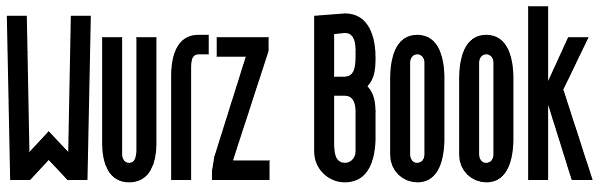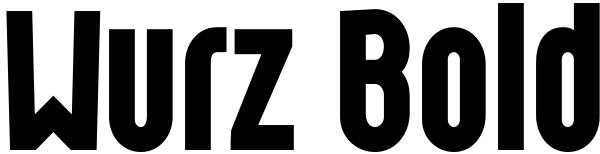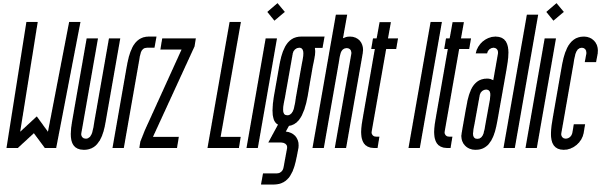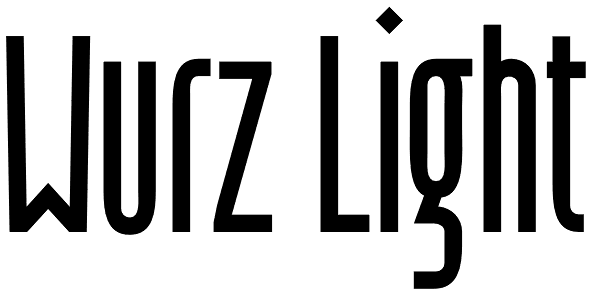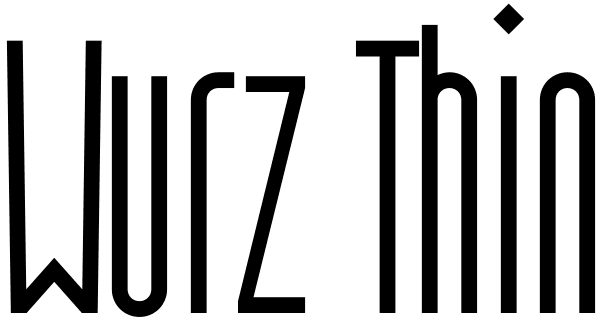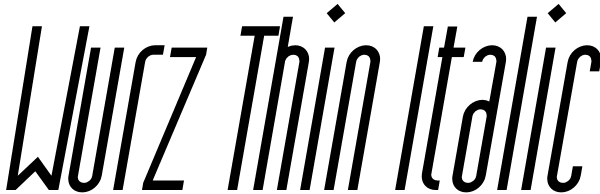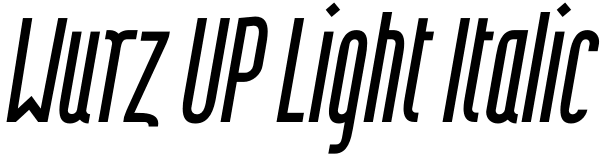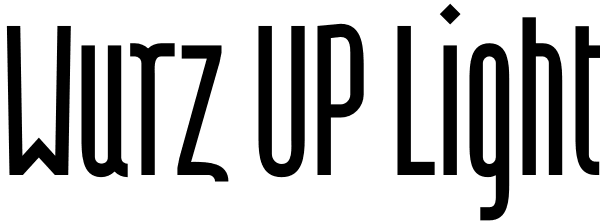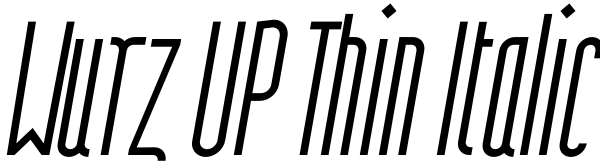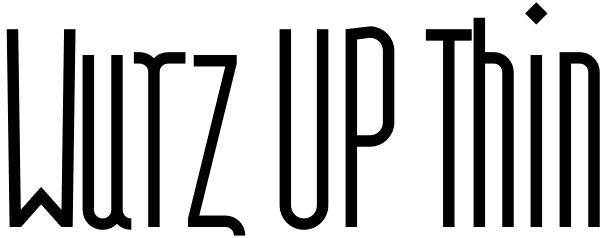
Wurz
Wurz is a family with 32 variants. Designed for labels, titles and posters. And to play with typography in large sizes! Is a grotesque geometric. Designed on a modular basis.